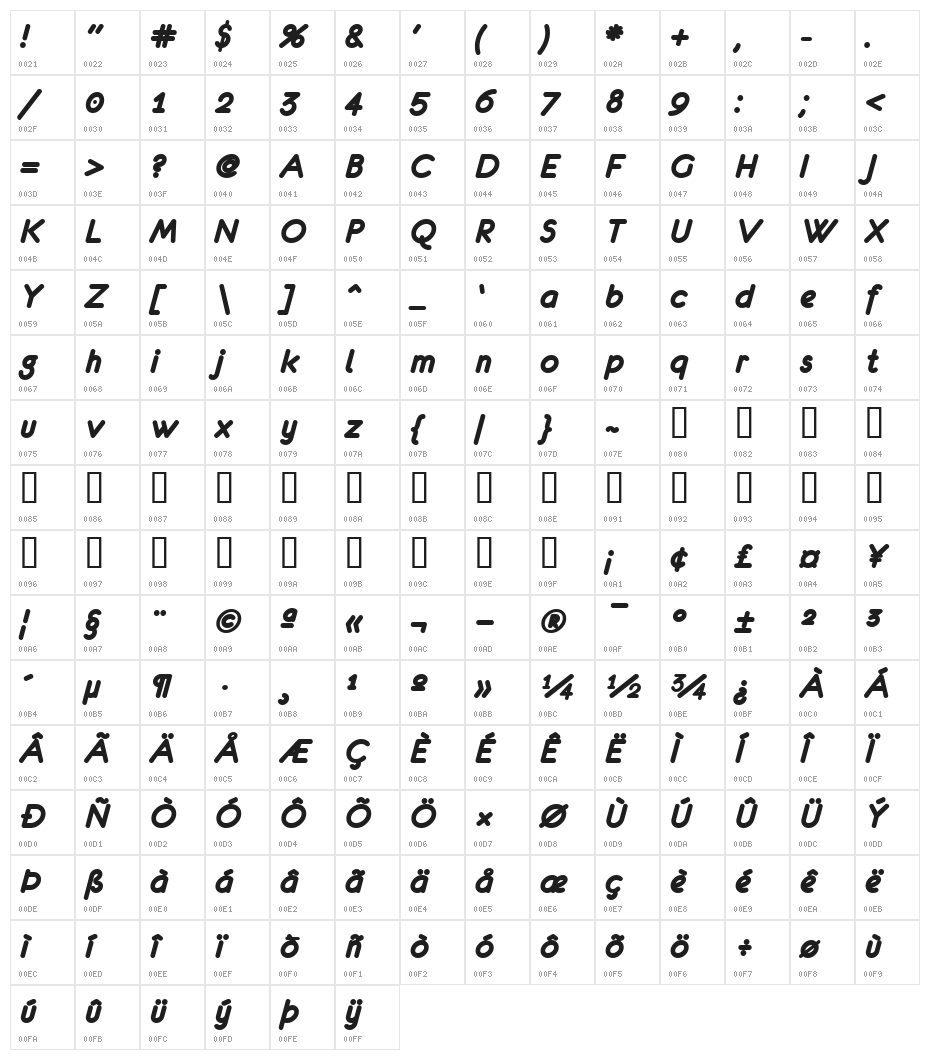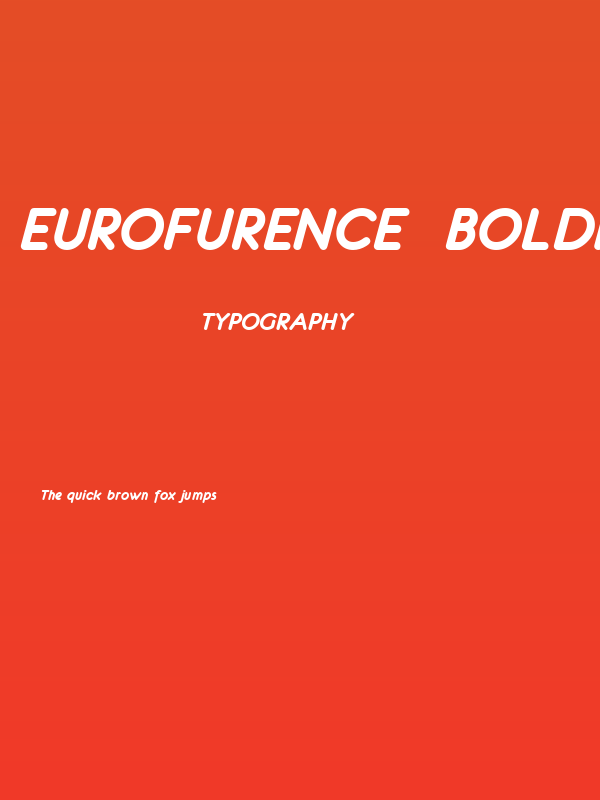
eurofurence bolditalic Font
eurofurence bolditalic Description
This font features a bold and italic style, characterized by its smooth, rounded edges and a playful, energetic appearance. The letters are slightly slanted, adding a sense of motion and dynamism. The bold weight gives it a strong presence, making it suitable for attention-grabbing headlines or titles. The rounded forms and consistent stroke width contribute to a friendly and approachable look, while the italic slant adds a touch of elegance and flair. The numbers and special characters maintain the same bold and rounded style, ensuring consistency across all elements.
| Proposed Projects | Ideal for branding, posters, and playful design projects where a bold and friendly typeface is needed. |